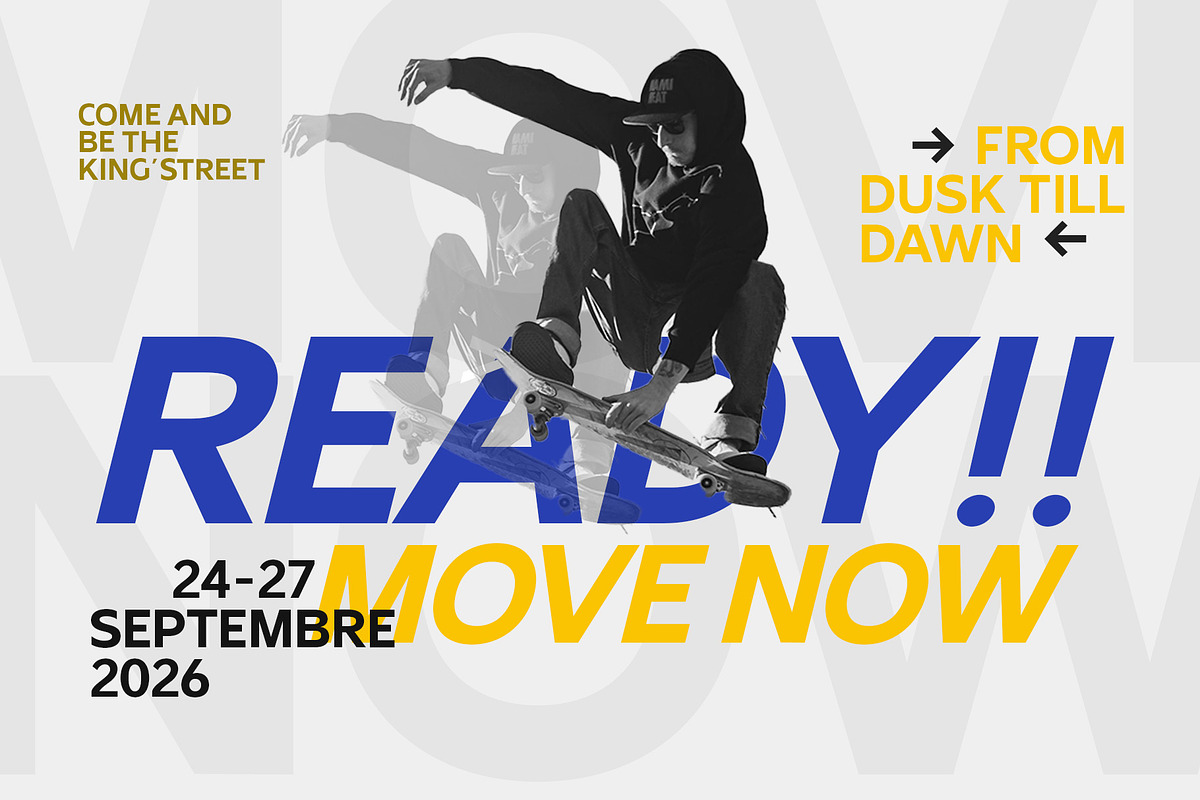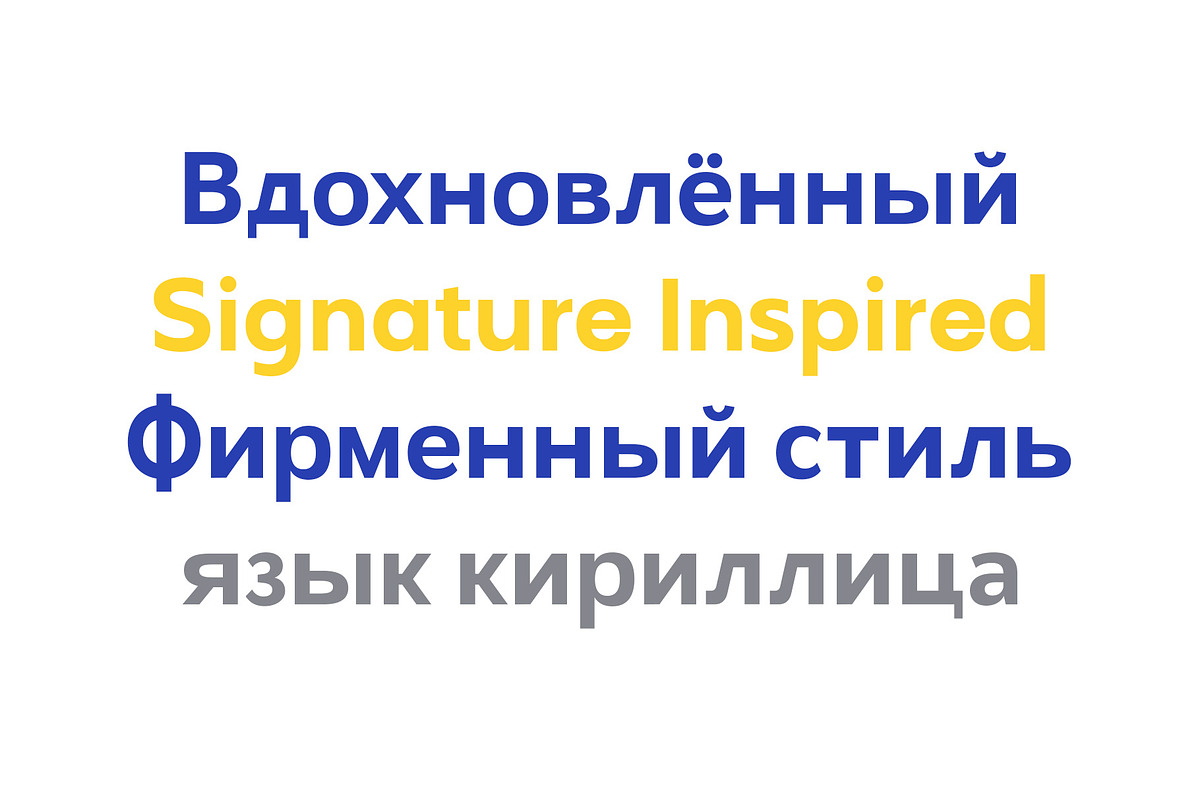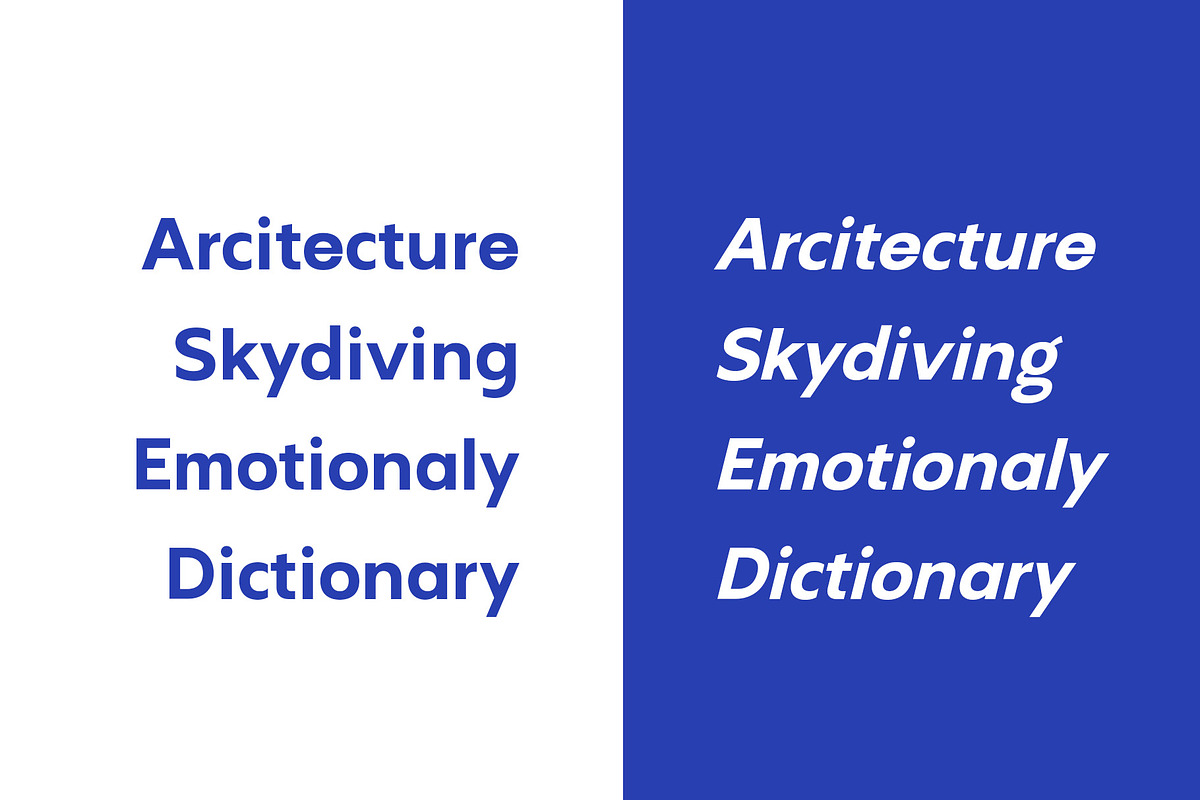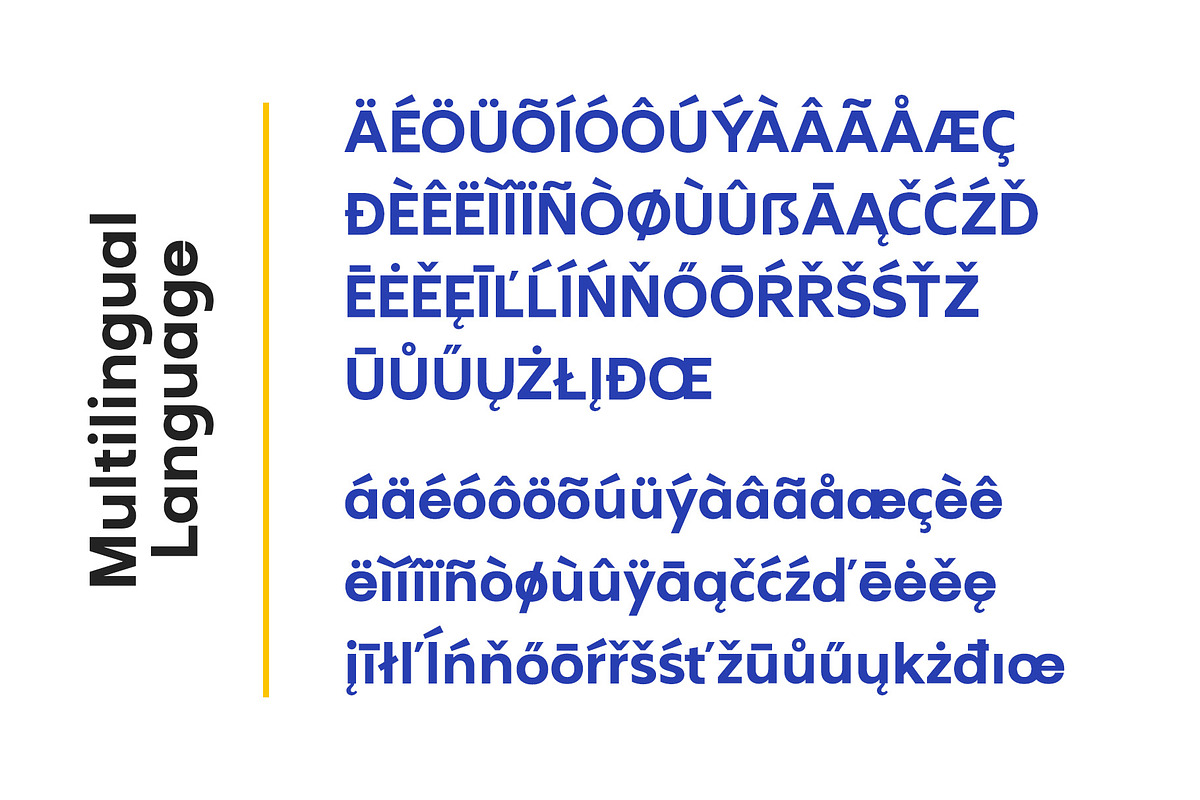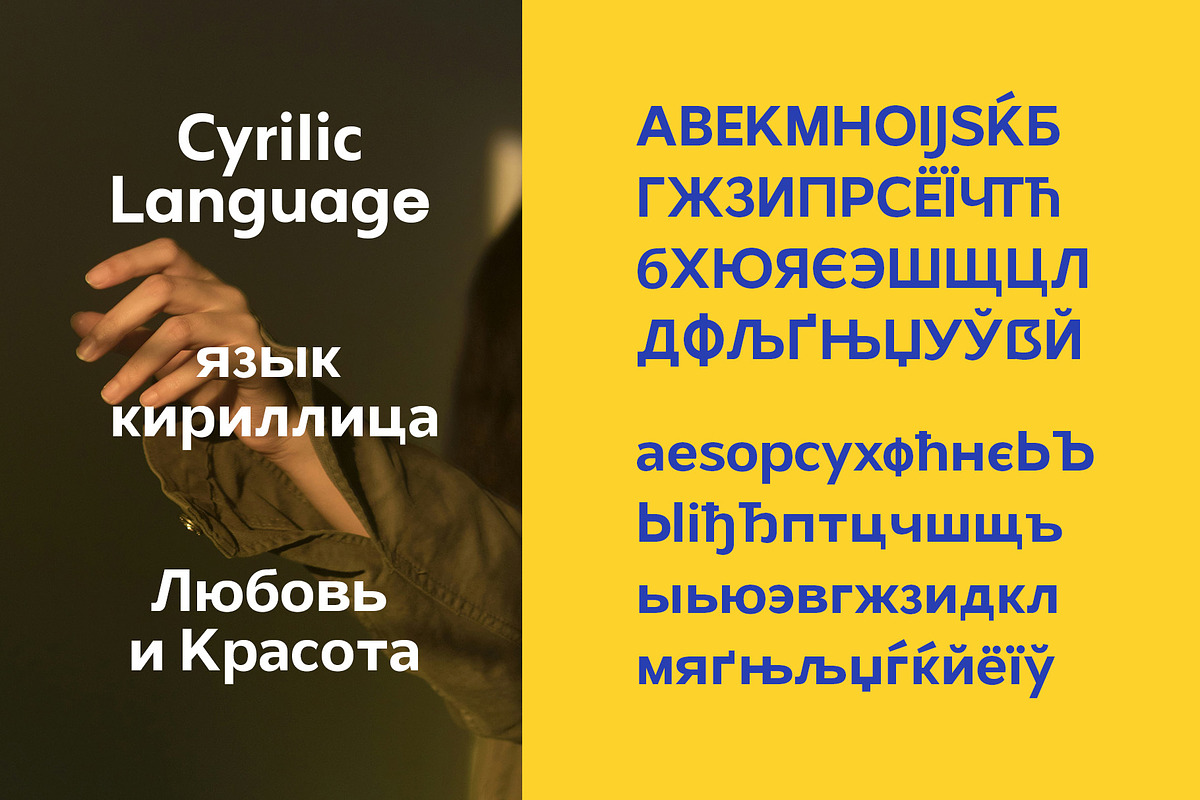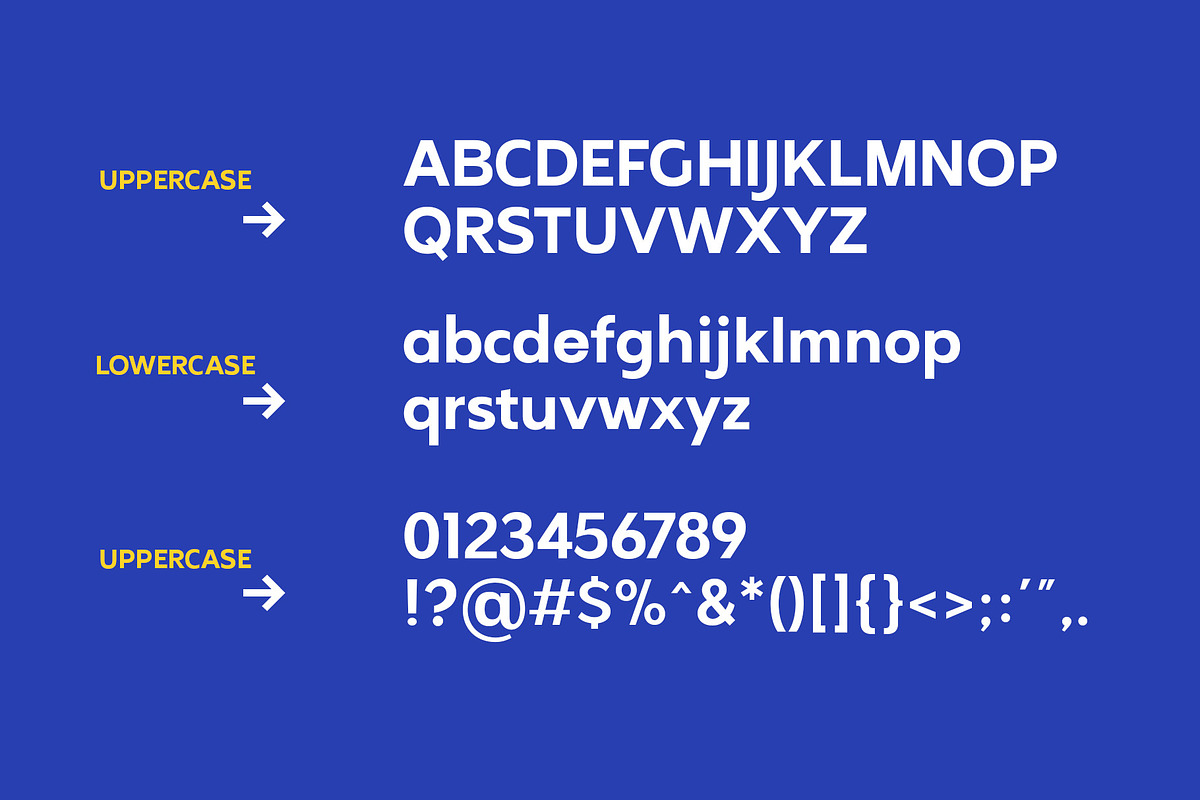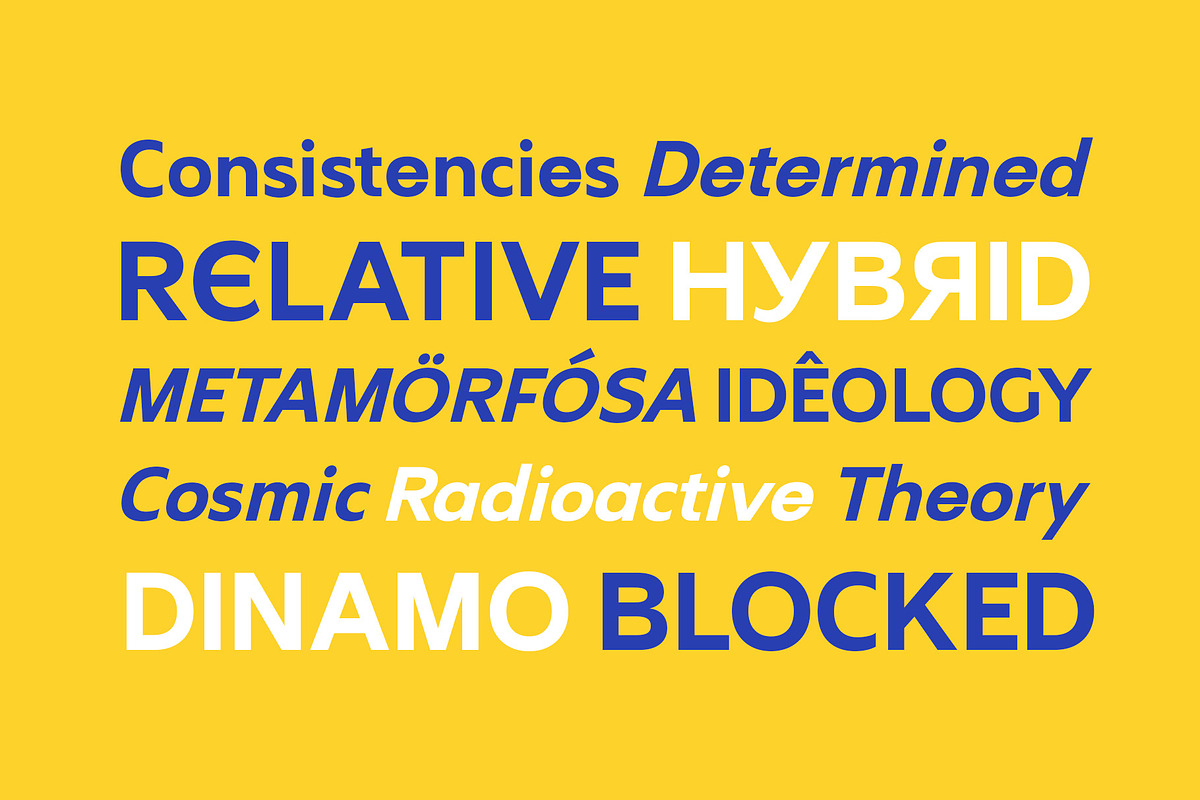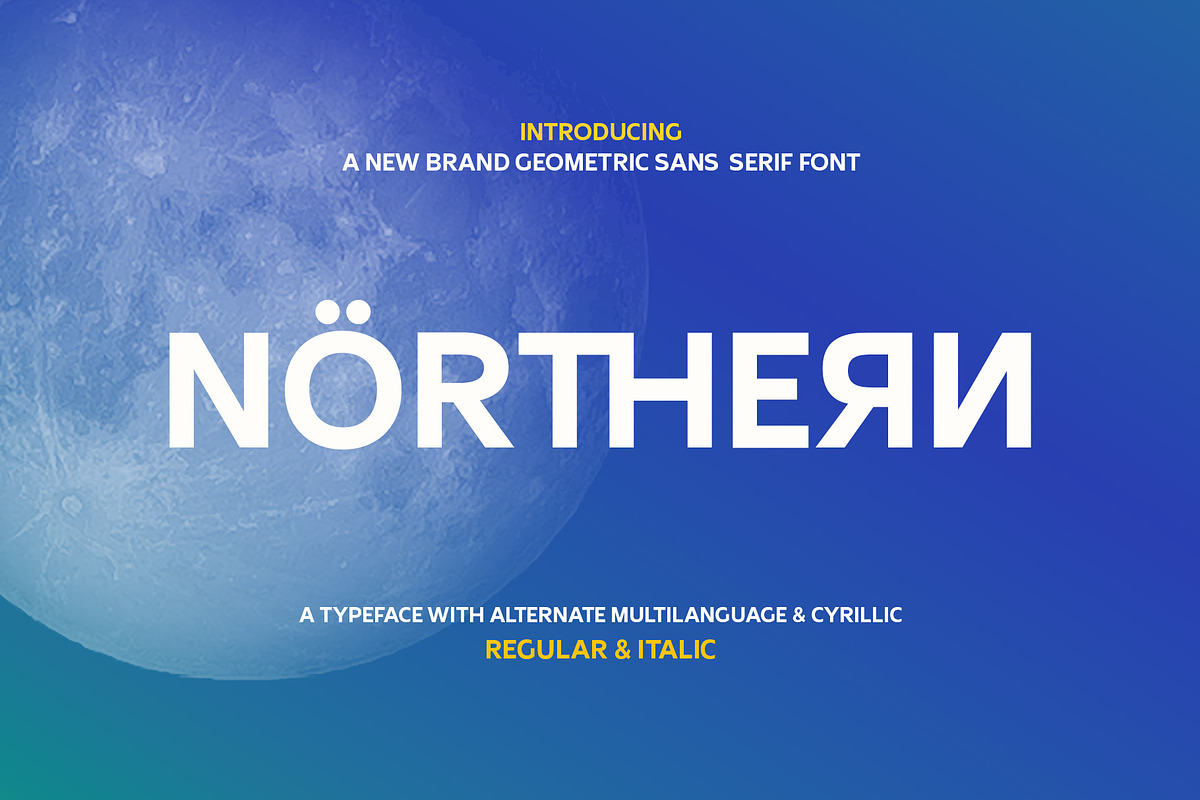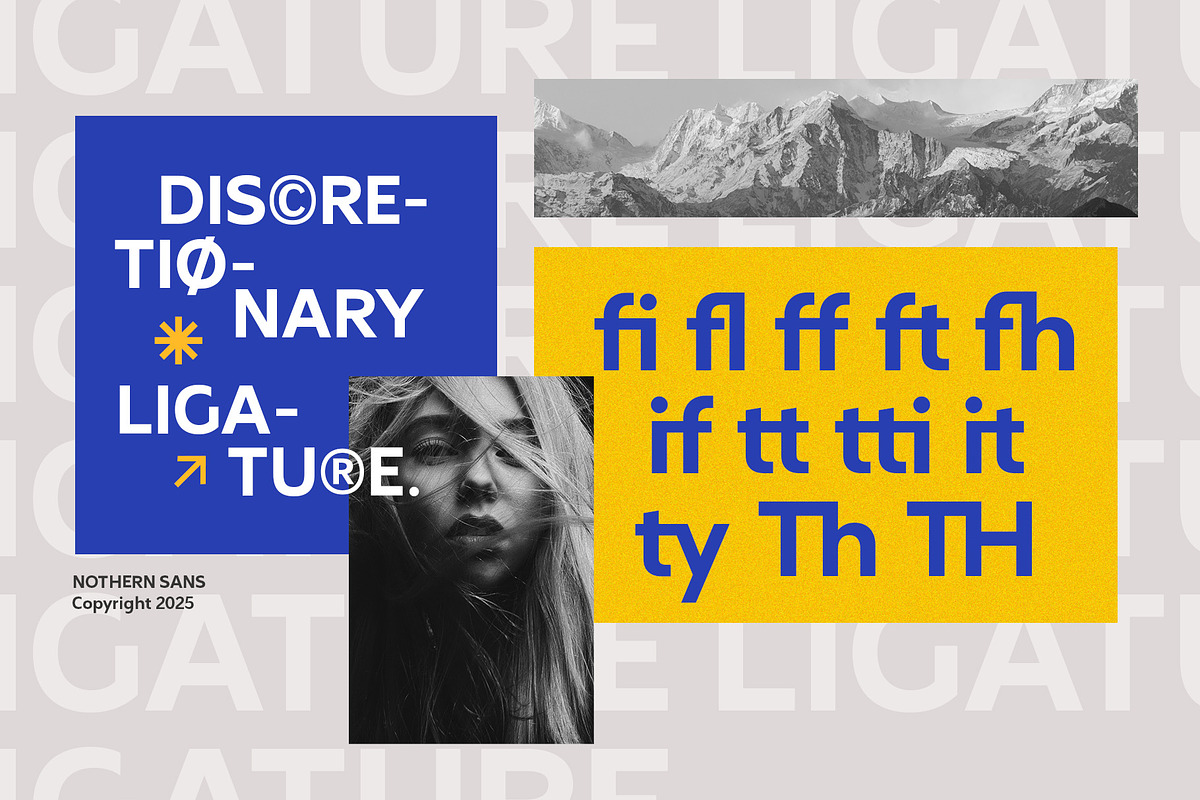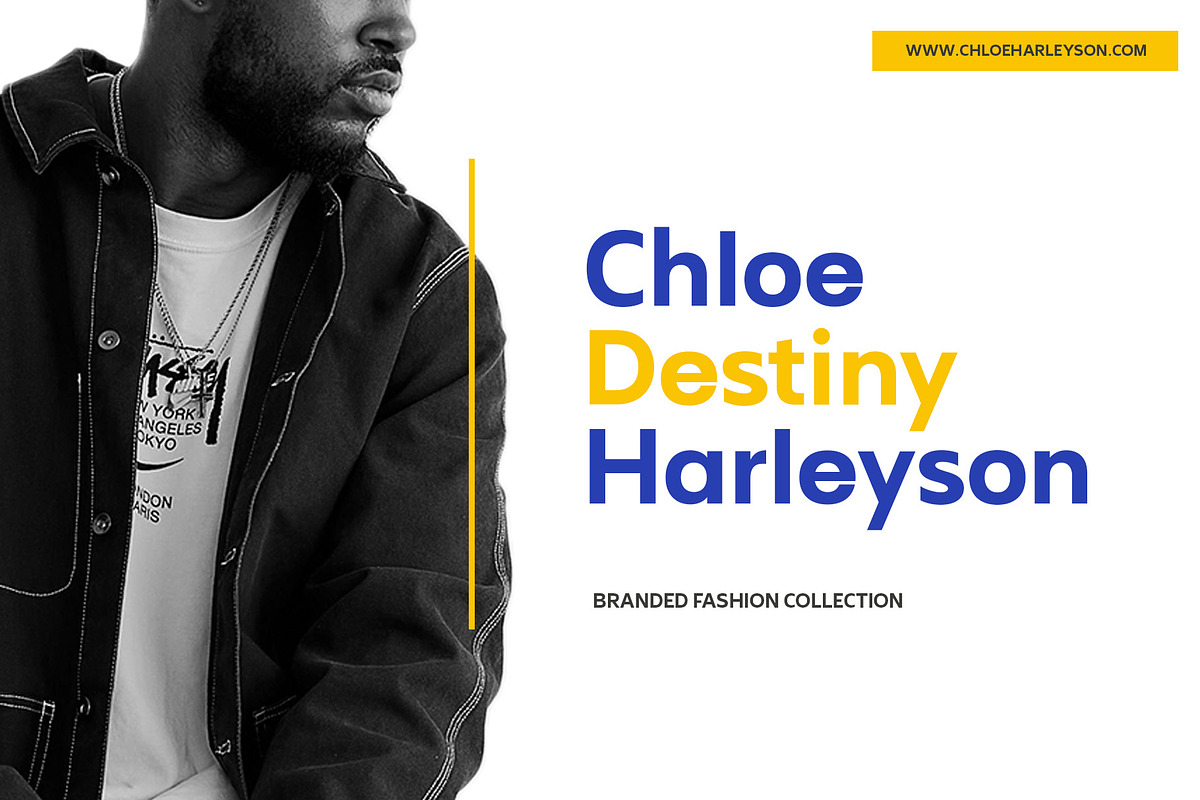
Northern Sans
Northern Sans is a modern sans-serif font with a clean, geometric, and functional design. Created to be bold yet flexible, this font combines balanced letterforms with subtle details that give it a professional and contemporary feel.
-Letters, Numbers, Punctuation, Accent Ligatures, Swash, Alternatives